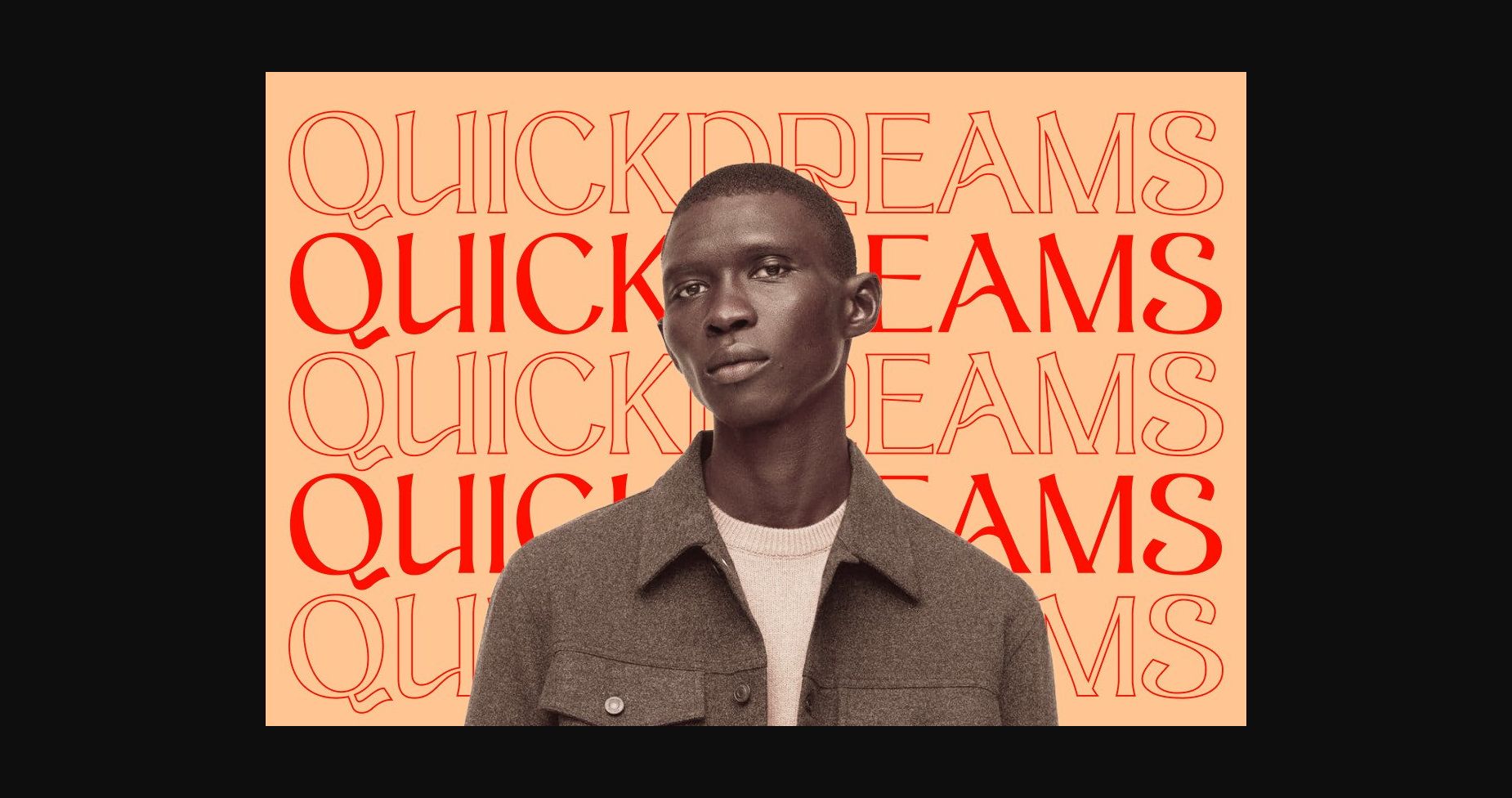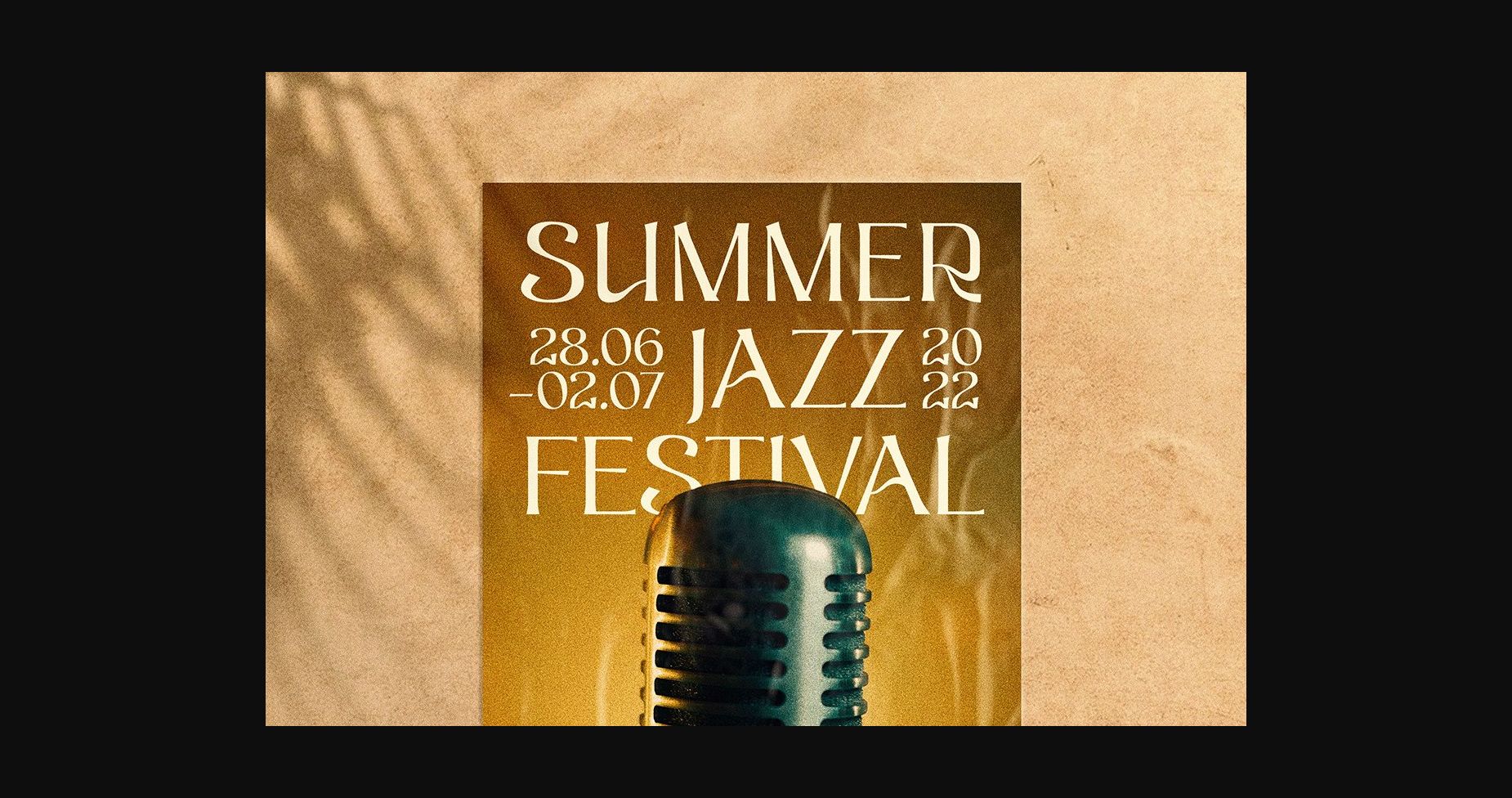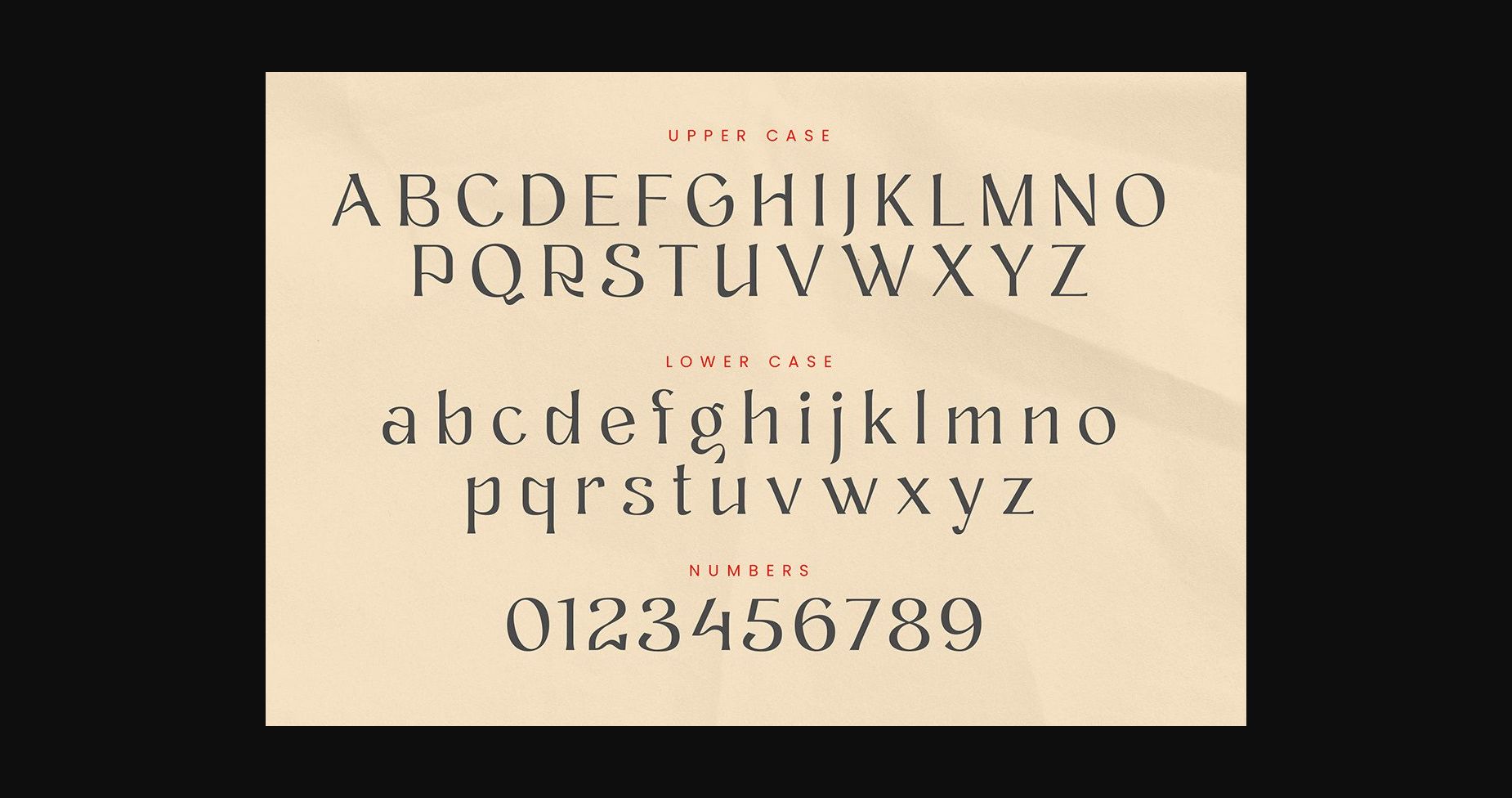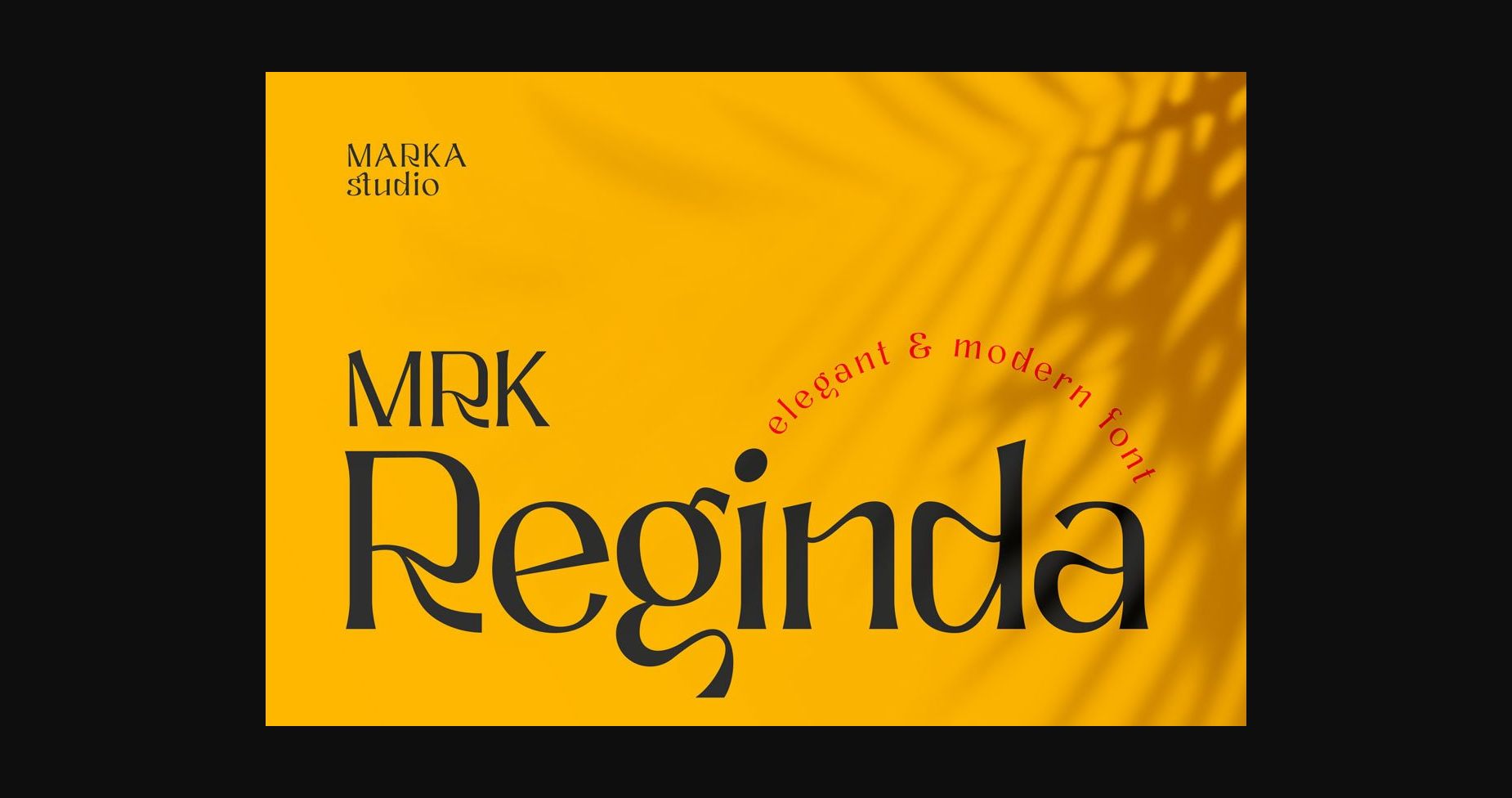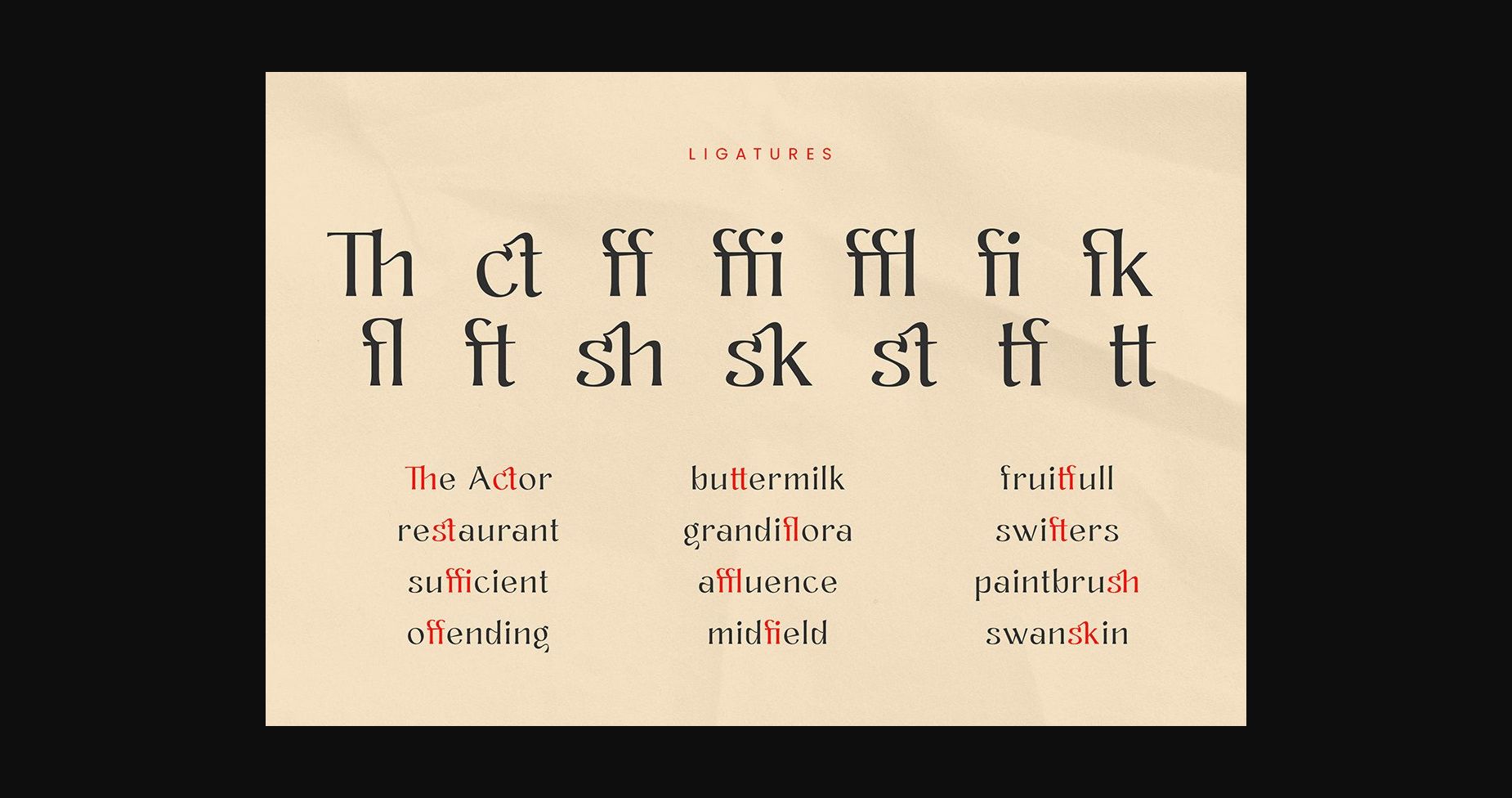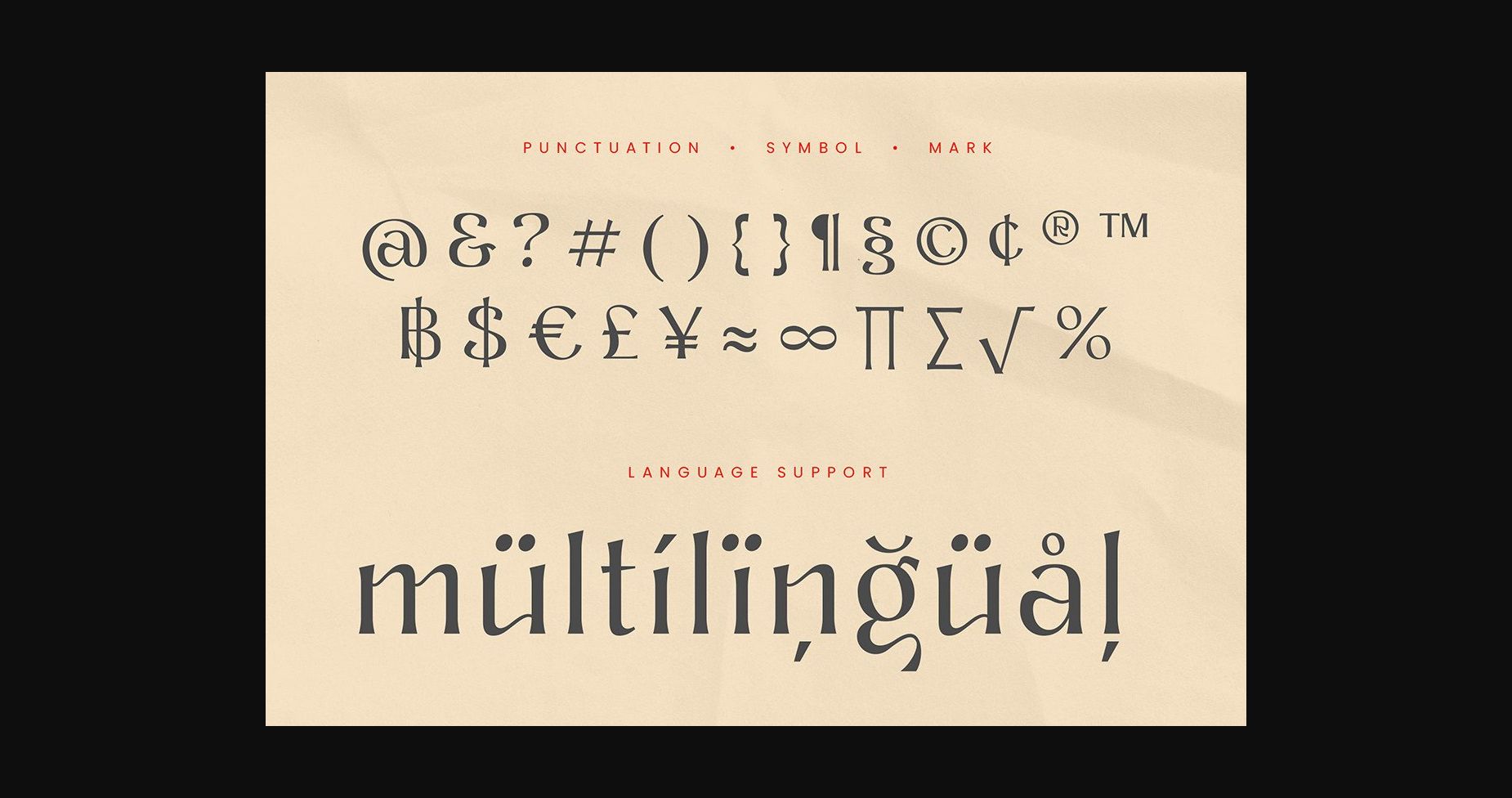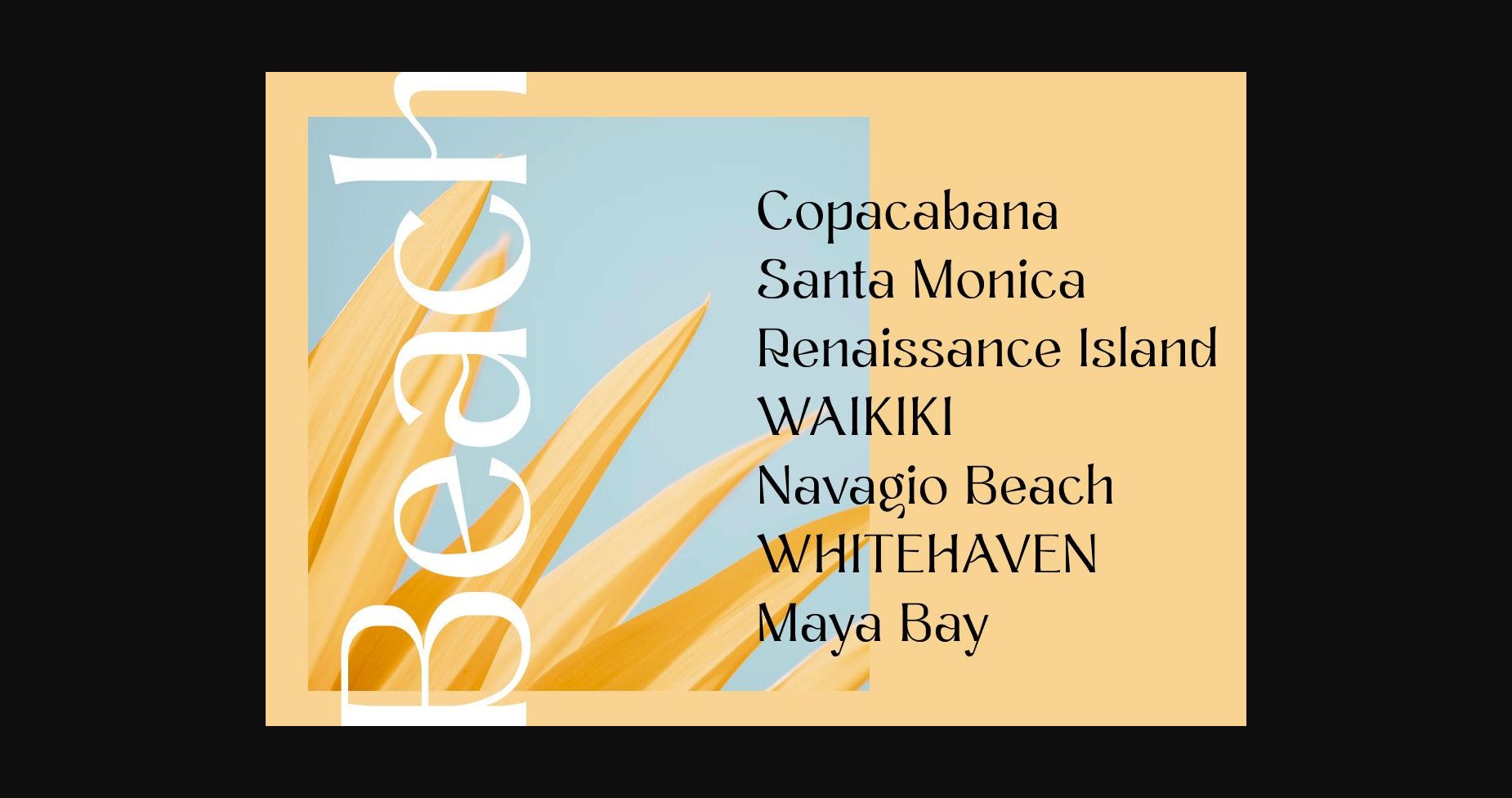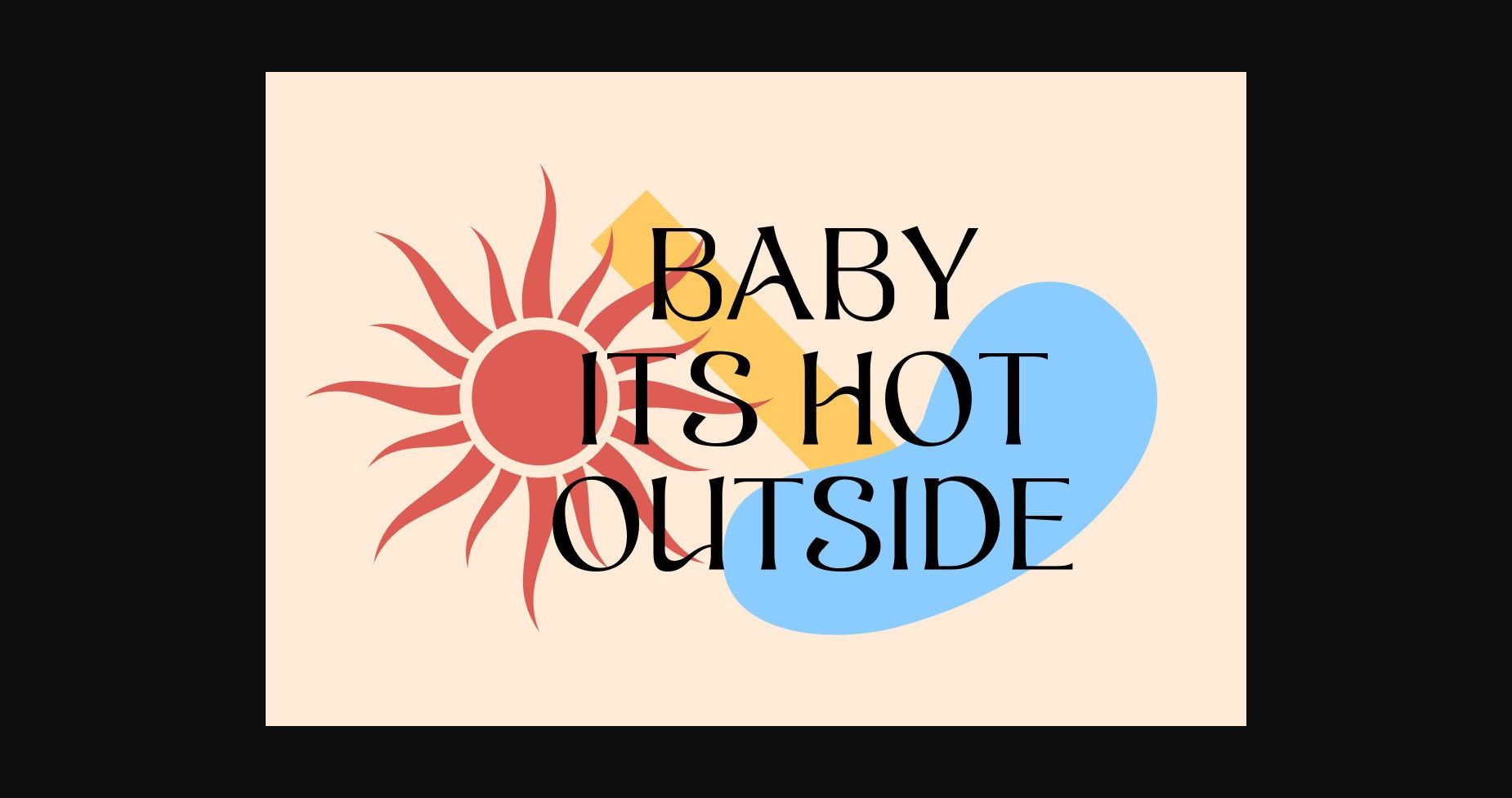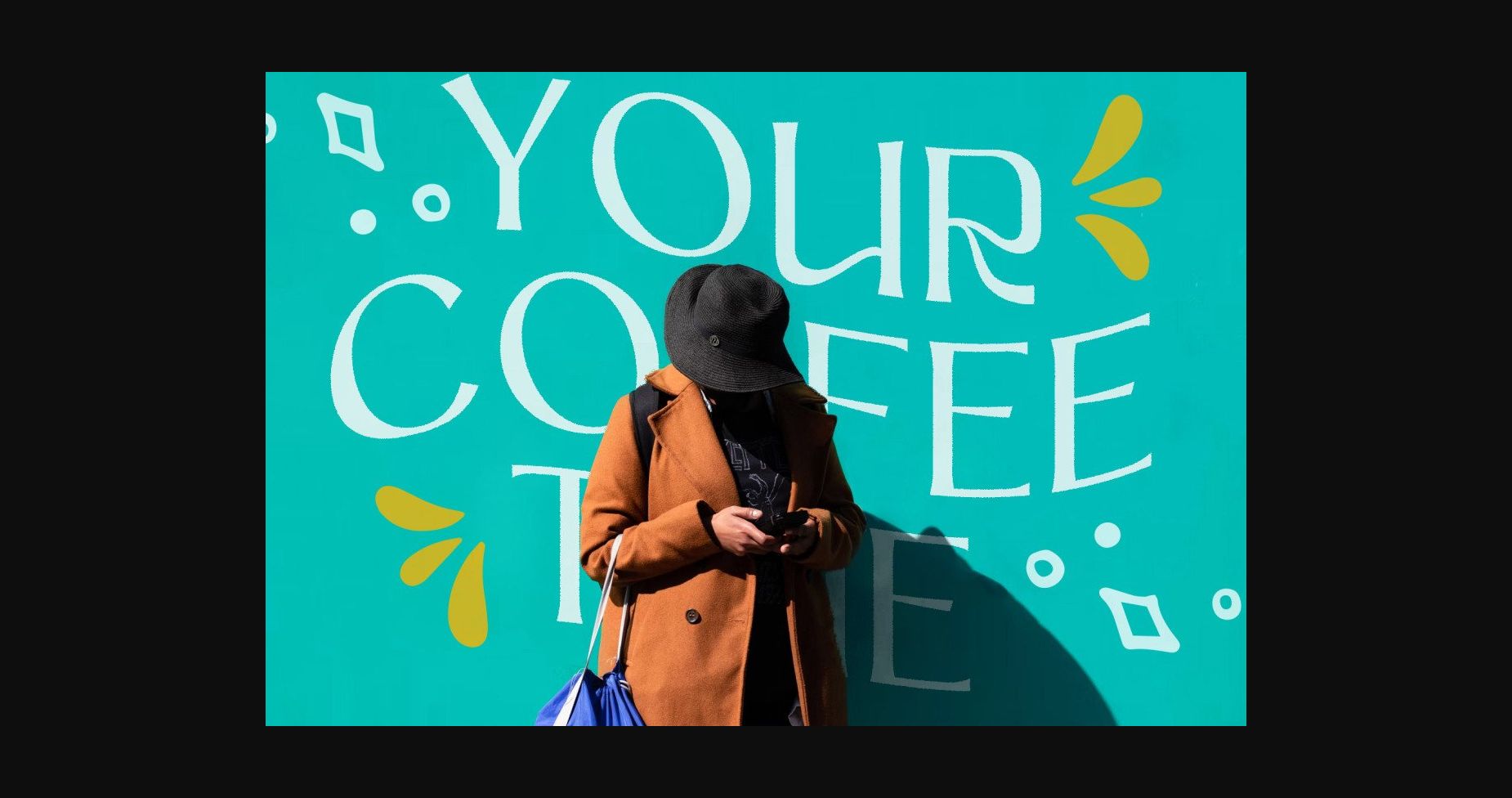
HomeSans Serif FontsReginda Font Sans Serif Fonts Reginda Font FacebookXPinterestWhatsApp 1 of 11 ... Reginda Font Poster 2... Reginda Font Poster 3... Reginda Font Poster 4... Reginda Font Poster 5... Reginda Font Poster 6... Reginda Font Poster 7... Reginda Font Poster 8... Reginda Font Poster 9... Reginda Font Poster 10... Reginda Font Poster 11... About Reginda Font Reginda is a psychedelic-inspired sans font. It’s trendy, stylish, and playful. Thin and curve lines mix with smooth thick curves creating unique glyphs that are perfect for interesting wordmarks and typographic posters. DOWNLOAD NOW People also explored Wonderful Love Font Minotte Pro Coconut Font The Lazy Fog Font Freak Funky Font Cutesy Cookies Font White Mug Pink Floral Mock Up Elizabella Font Laserbeam Font 462 0 TagsRegindaReginda Font Previous articleLektocy FontNext articleAmentus Font LEAVE A REPLY Cancel reply Comment: Please enter your comment! Name:* Please enter your name here Email:* You have entered an incorrect email address! Please enter your email address here Website: Save my name, email, and website in this browser for the next time I comment. Personal Use Free Gupis Personal Use Free Read more about this font Numberpile Personal Use Free Read more about this font Deftone Personal Use Free Read more about this font Ayam Bakar Personal Use Free Read more about this font BLOG 5 Fonts That Will Dominate Design Trends in 2026 5 Fonts for 2026 That Will Dominate Design Trends Typography plays a critical role in visual communication, and as we look ahead to 2026, it’s... Modern Sans-Serif Fonts That Brands Love in 2025 Top 7 Google Fonts Alternatives for Faster and Privacy-Friendly Web Design (2025) How to Cut Any Font on Cricut: Convert a Font to SVG (Free)